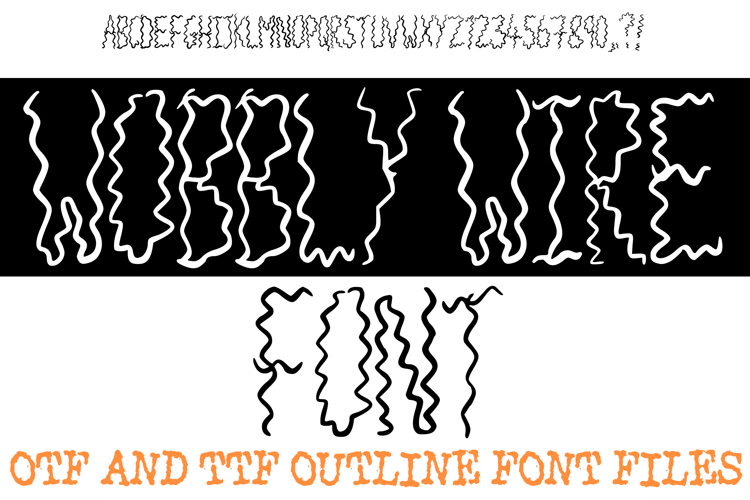
Wobbly Wire Lettering Font Spring Bouncy ABC OTF Type
The Wobbly Wire Font is a high-energy, experimental display typeface that brings a unique, "electric" movement to digital design. Characterized by its shaky, oscillating outlines and bouncy rhythm, this font mimics the look of a live wire or hand-bent neon tubing. It is an exceptional resource for designers working on quirky social media branding, edgy music event posters, avant-garde editorial layouts, and high-impact streetwear.
Crafted with a focus on motion and unpredictability, Wobbly Wire breaks away from traditional rigid structures to offer a truly handcrafted feel. Whether you are designing a standout logo for an indie band or creating vibrant, distorted headers for a creative lifestyle blog, this font's energetic silhouette ensures your message vibrates with personality.
Why Your Designs Will Stand Out
Bouncy Oscillation Effect: The irregular, shaky paths create a built-in sense of vibration and kinetic energy, perfect for designs that need to feel "alive."
Thin-Line Modernity: The consistent, wire-like stroke weight offers a clean but chaotic aesthetic that pairs perfectly with minimalist photography and bold color palettes.
Hand-Bent Neon Aesthetic: The flowing, continuous feel of the letters evokes the look of custom neon signage or light-painting photography.
High-Contrast Versatility: Provided in both OTF and TTF formats, the clean outlines are optimized for crisp rendering on screens and precise cutting for physical merchandise like vinyl decals.